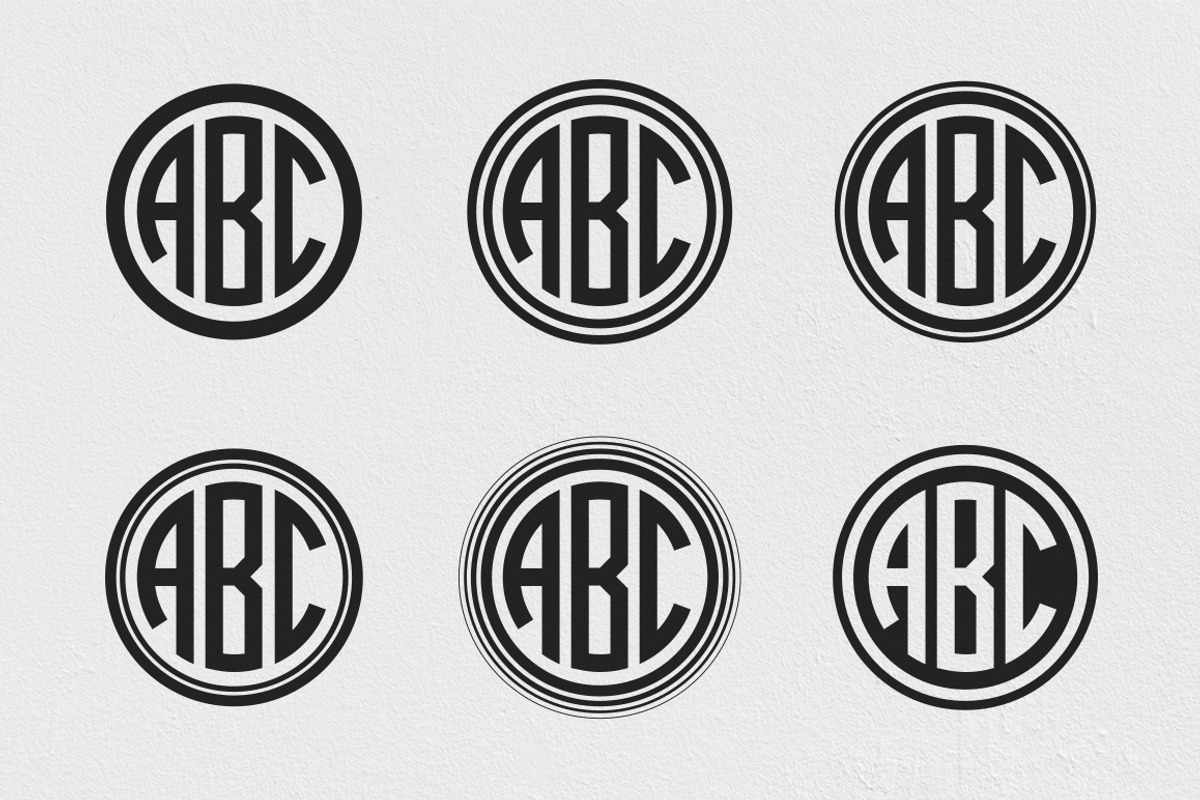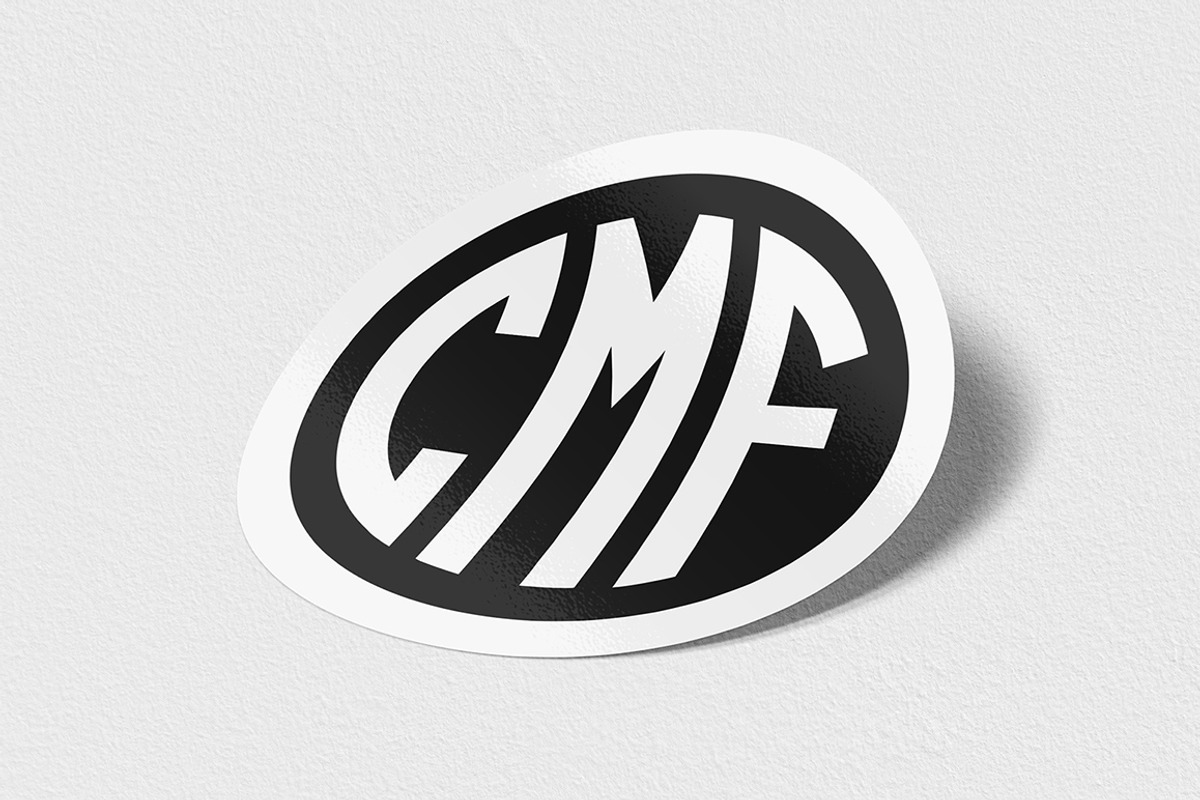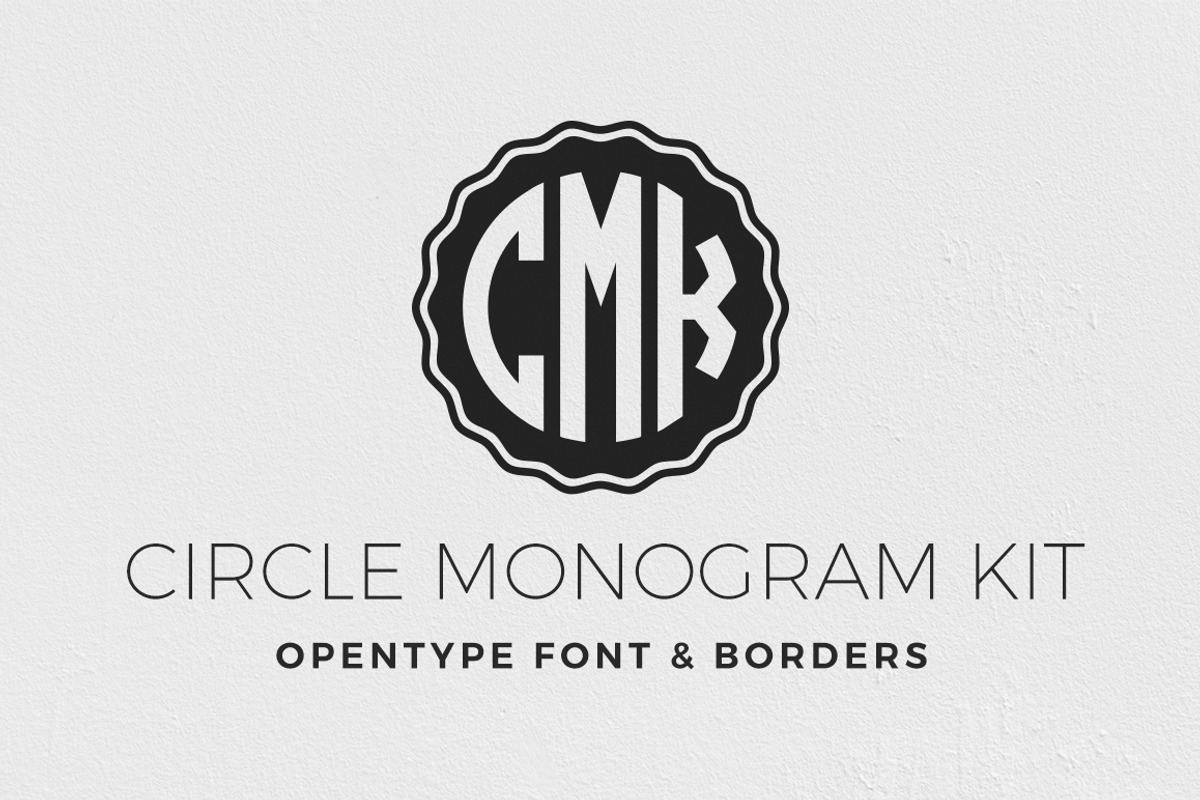
Circle Monogram Font Kit
This pack contains an intelligent OpenType circle monogram font, and 16 editable vector circle borders supplied in Illustrator, SVG and Sketch formats. It couldn't be simpler to use, just type your letters with the font and choose your favourite border to complete the monogram.
UPDATE - NEW 2 LETTER FONT
We have now added a 2 letter version of the font for creating shorter monograms. The 2 letter version compliments the original 3 letter version perfectly and is compatible with all of the borders. Just like the 3 letter version, it is also supplied in OpenType format with Contextual Alternates and legacy fonts split into left and right versions for compatibility.
The Circle Monogram font allows you to create beautiful circle monograms using either 2 or 3 initials. It features all 26 letters of the alphabet with left, center and right variations to form a full circle monogram. Unlike most other circle monogram fonts: this product contains all letter forms in a single font file (we also include a legacy version split into left, center and right for compatibility). In addition to the OpenType font file, we have also included vector source files for Illustrator and Sketch featuring vectors of all glyphs.
CIRCLE MONOGRAM BORDERS
The kit also includes a set of 16 predesigned unique circle borders that are perfect for combining with your circle monogram. The borders are 100% vector and have editable stroke widths for customisability. The vector borders are supplied in Illustrator CS4, Illustrator CS6, SVG and Sketch formats.